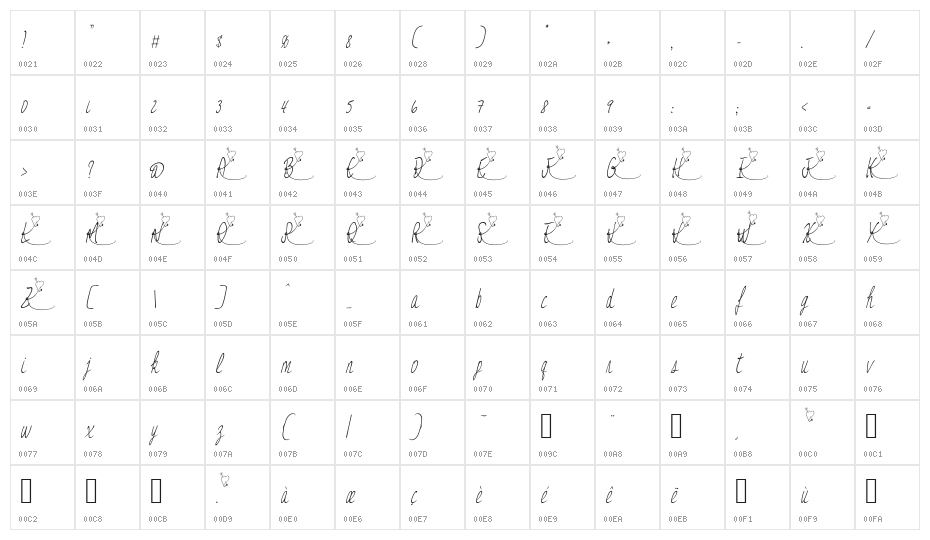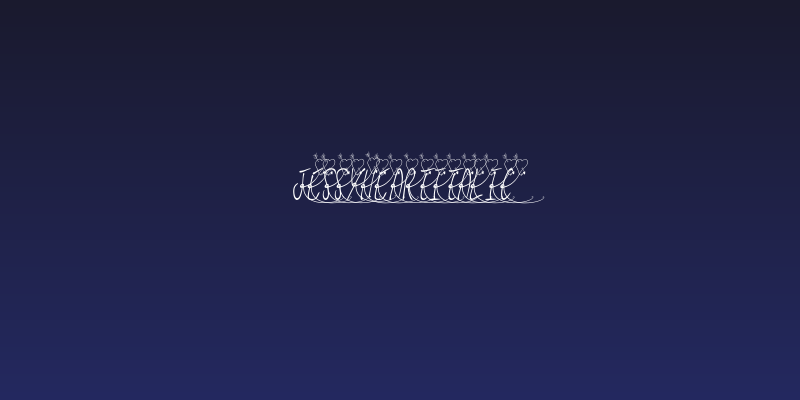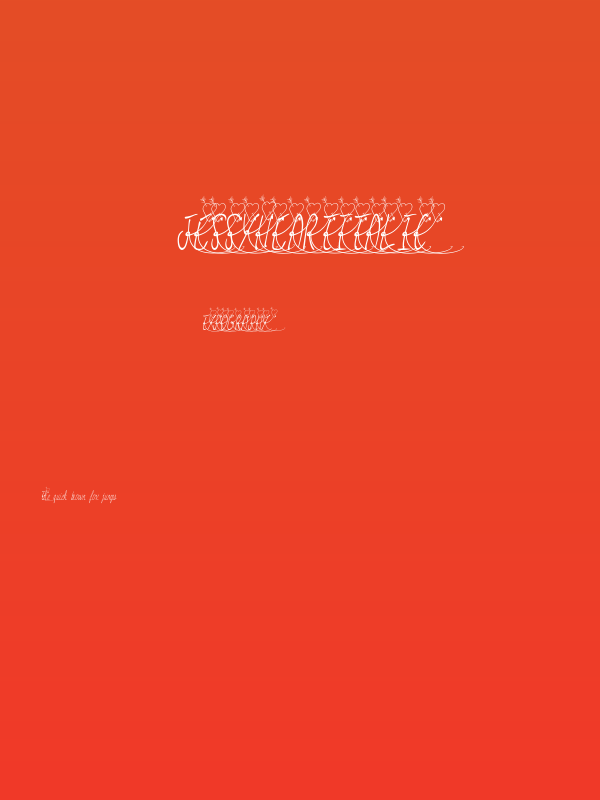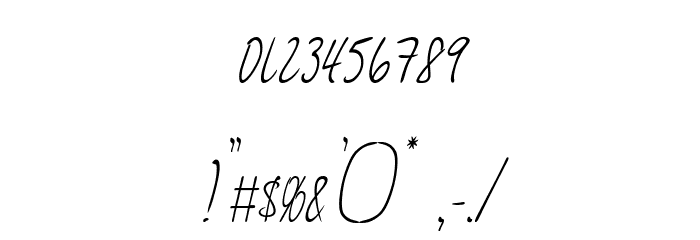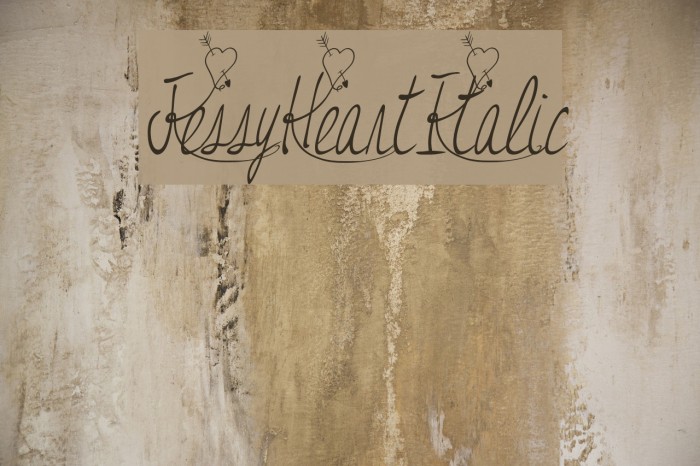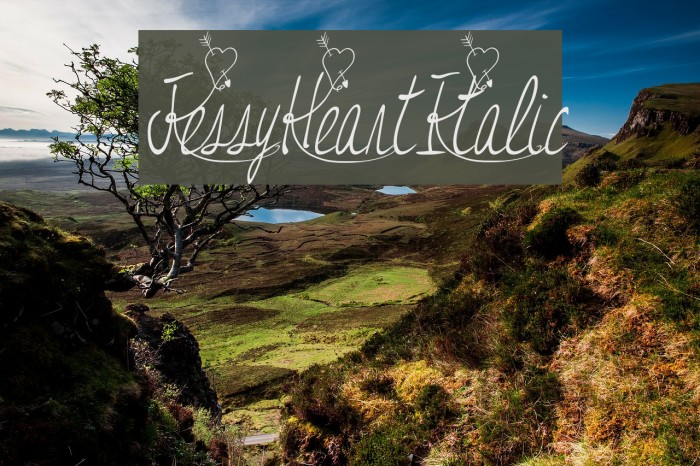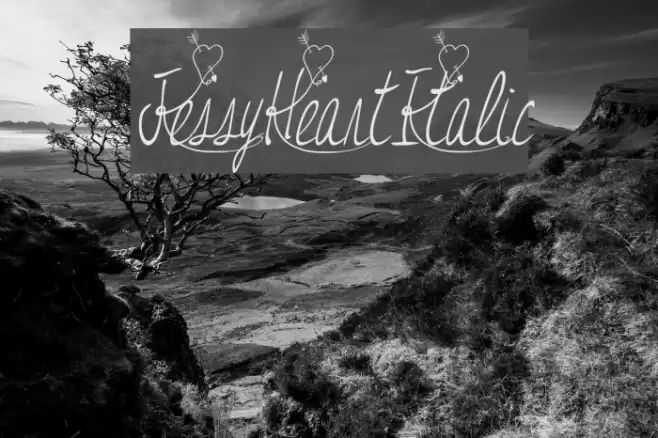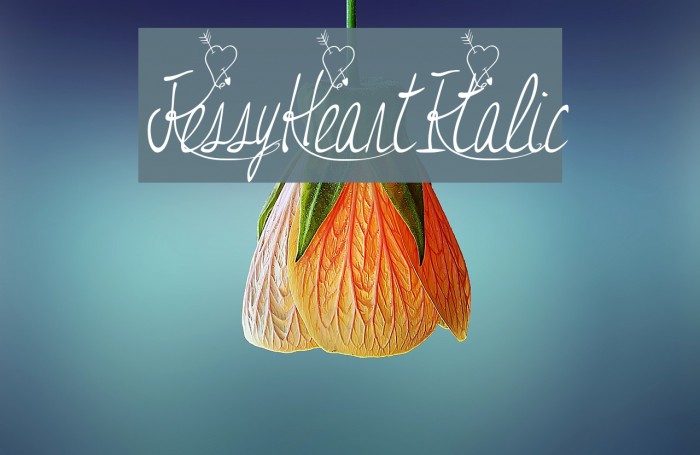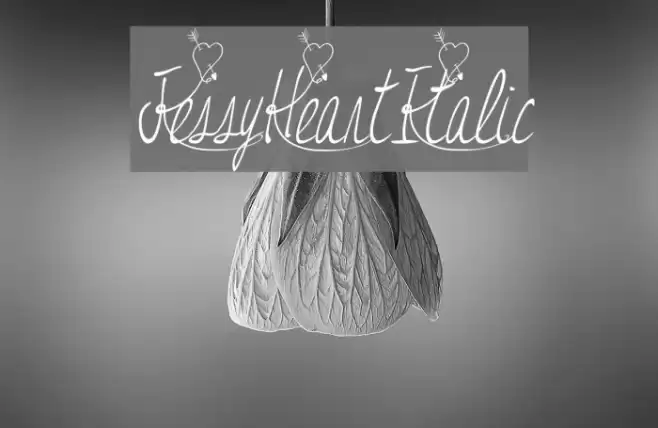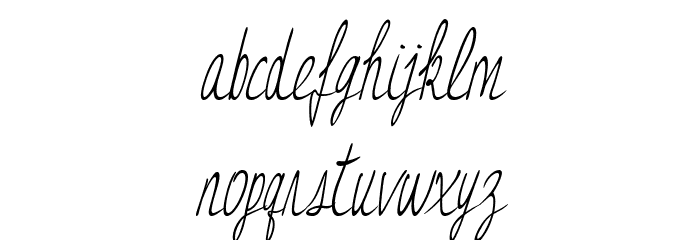
JessyHeartItalic Font
JessyHeartItalic Description
This font features an elegant and whimsical design, characterized by its flowing, cursive style with heart-shaped embellishments integrated into the uppercase letters. The strokes are thin and delicate, giving it a light and airy feel. The lowercase letters maintain a consistent slant, enhancing the italicized appearance. The numerals and special characters are crafted with the same attention to detail, ensuring a cohesive look throughout. The overall aesthetic is playful yet sophisticated, making it suitable for romantic or feminine-themed projects.
| Proposed Projects | Ideal for wedding invitations, greeting cards, love letters, and feminine branding projects. |